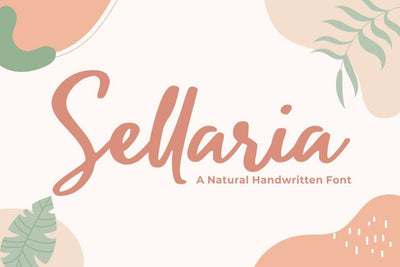
Sellaria – Handwritten Font
Sellaria – Handwritten Font is a modern signature font. Perfect for logo, invitation, stationery, wedding designs, social media posts, advertisements, product packaging, product designs, label, photography, watermark, special events or anything. This font include : Sellaria OTF-TTF-WOFF, Ligatures.
- Very great for branding, logotype, handletteing, invitations, or fashion branding.